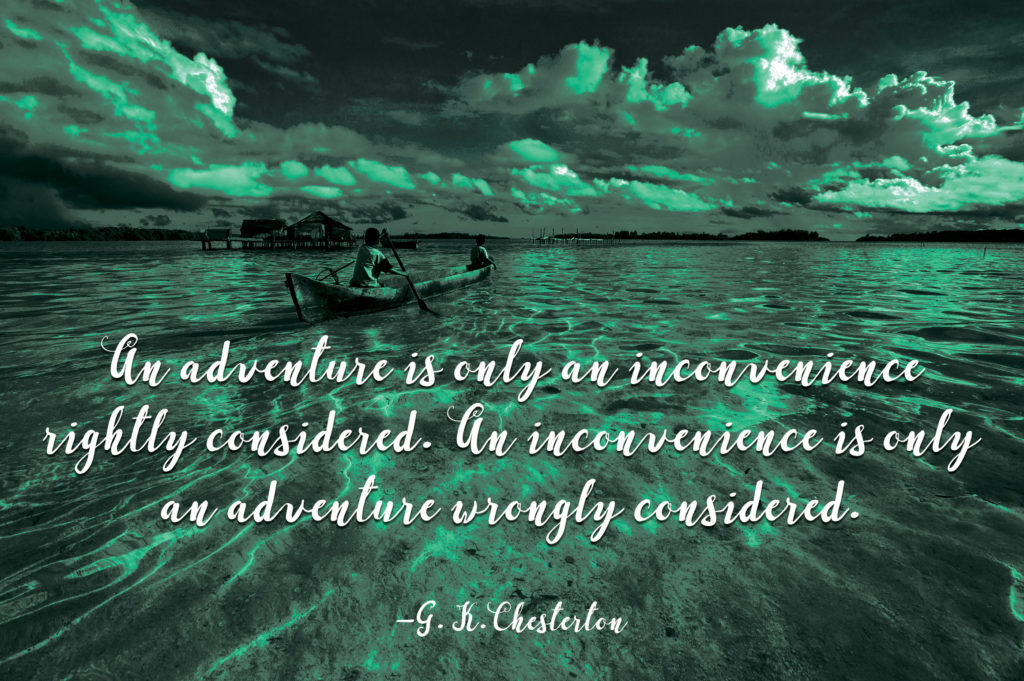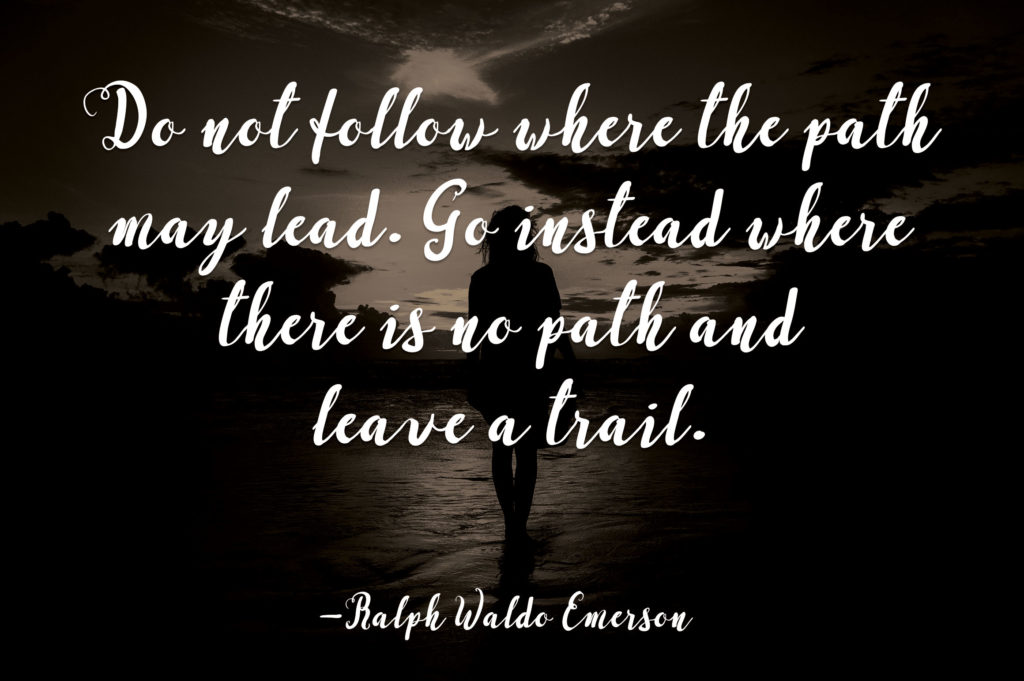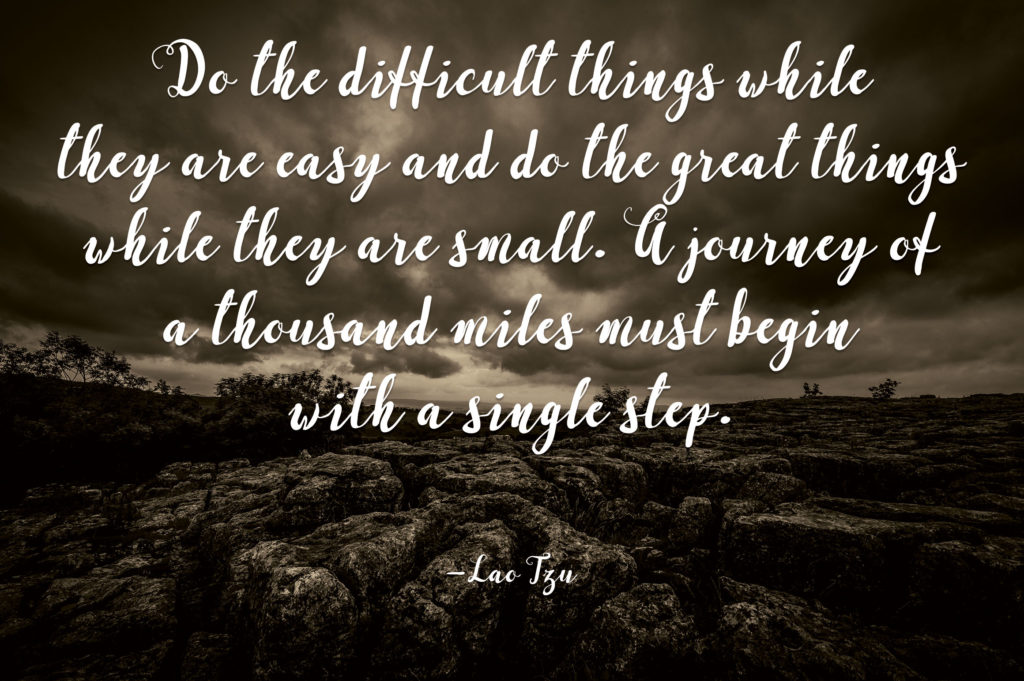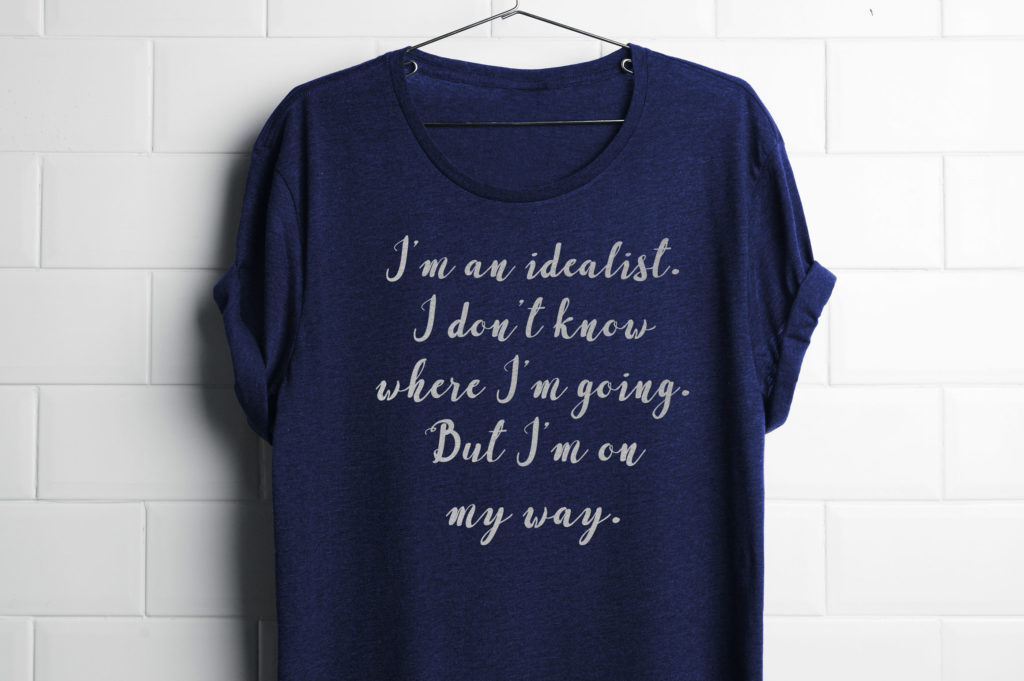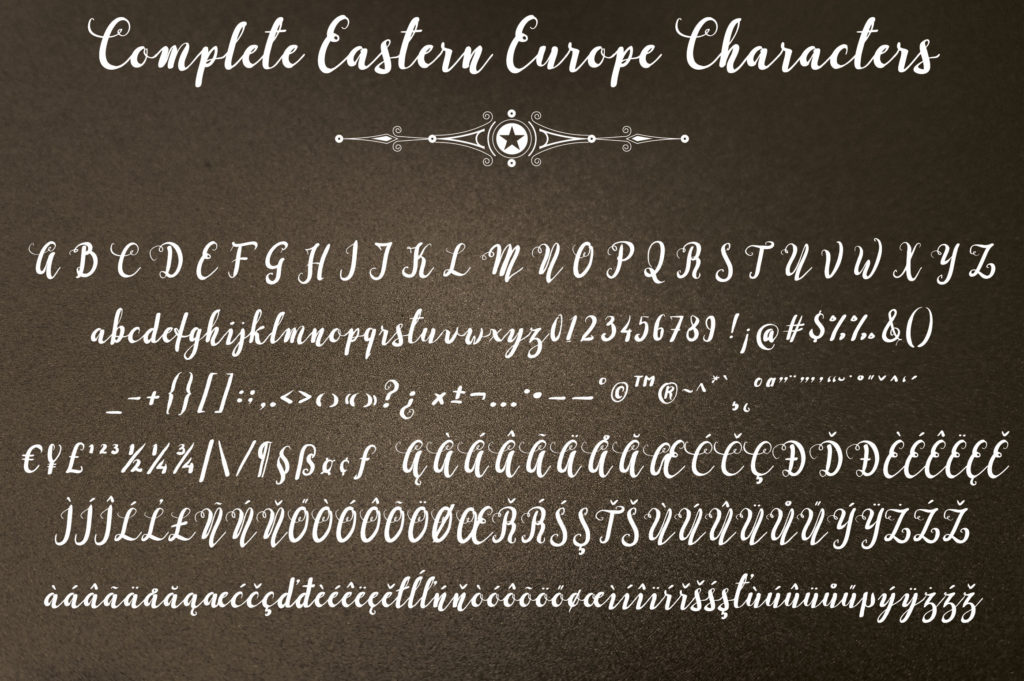
Perfectos Font
About Perfectos Font
Perfectos is a stunning script which is a great addition to your design aresenal. The Perfectos font supports Latin & Eastern European characters.